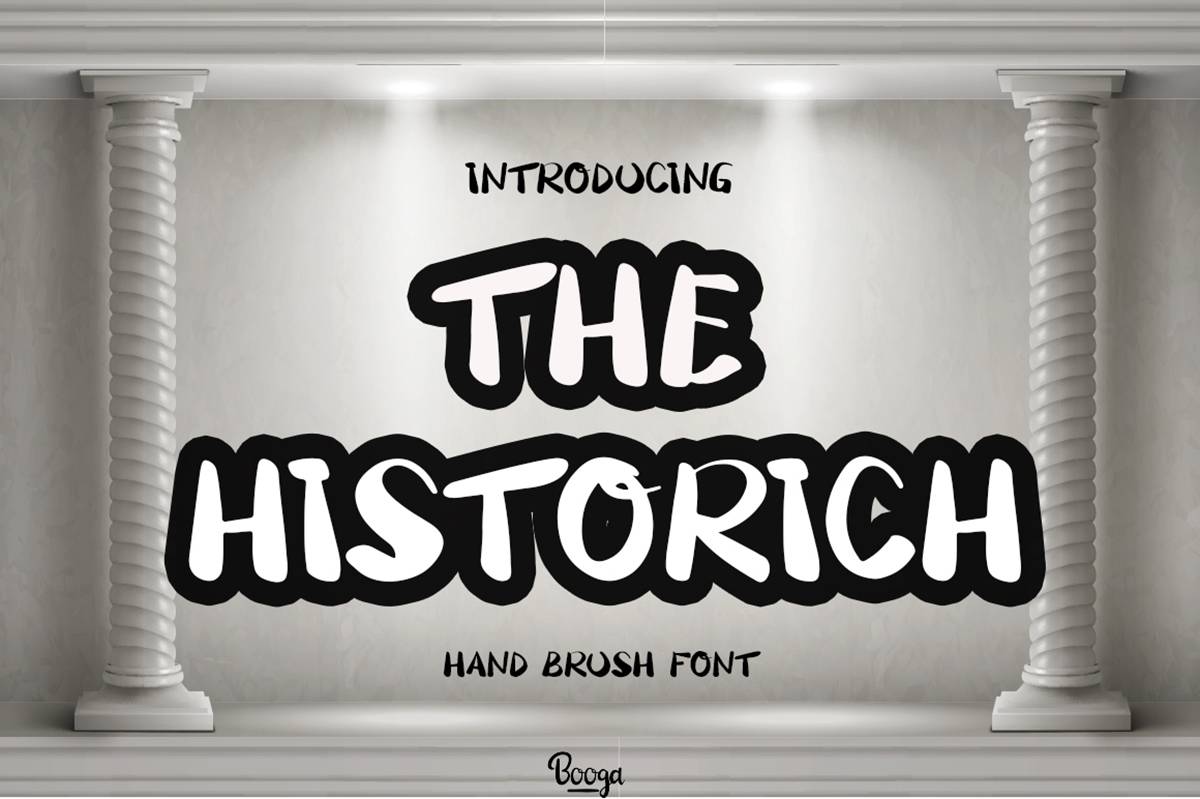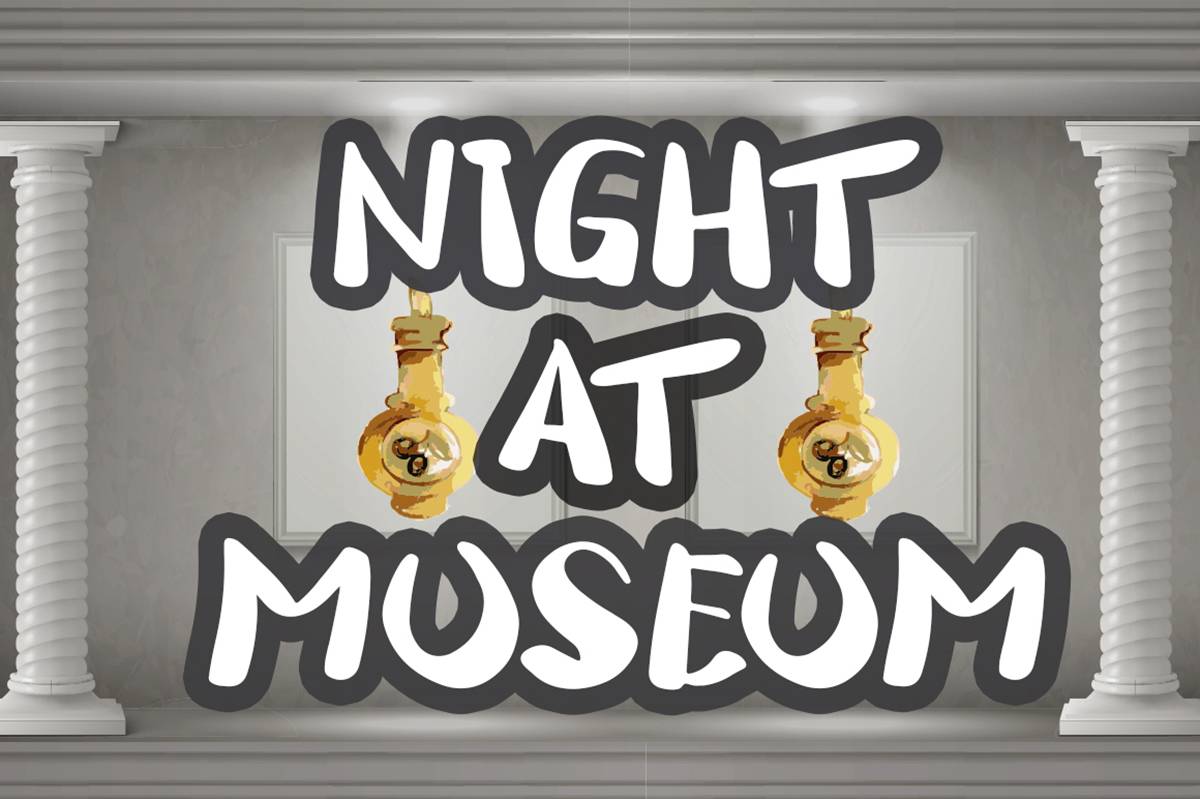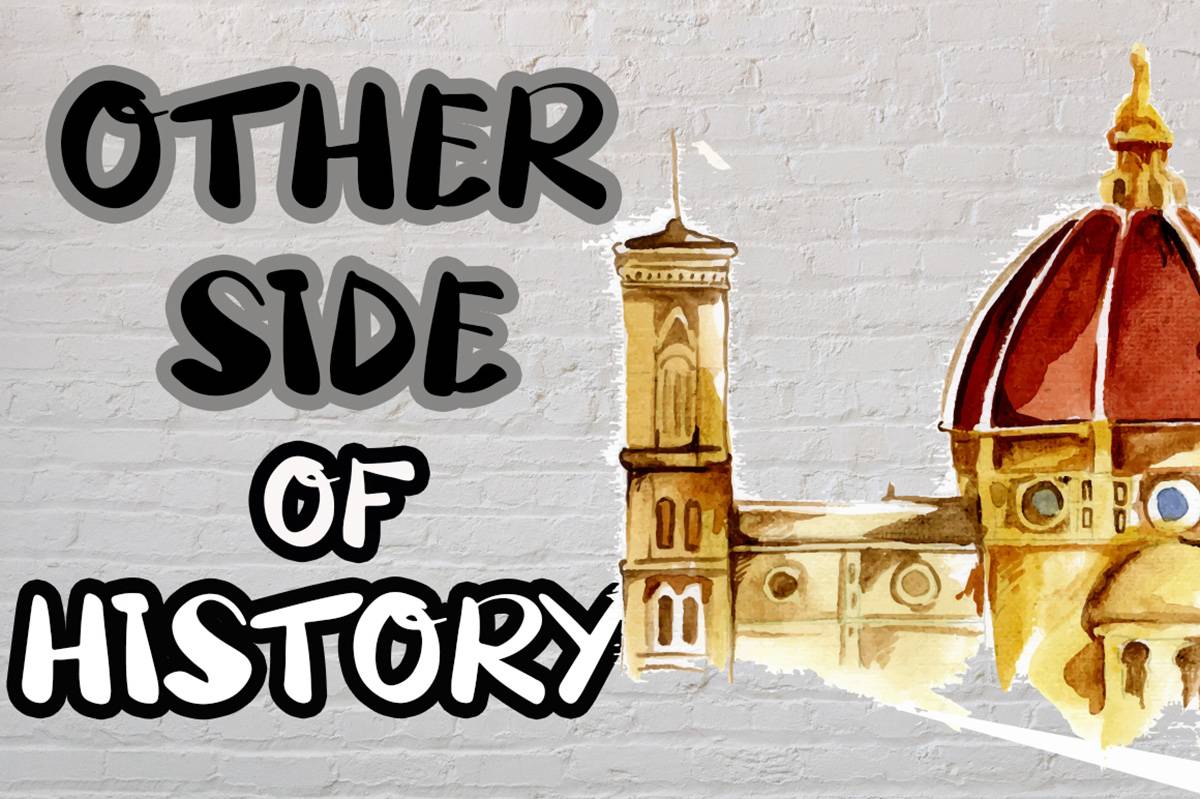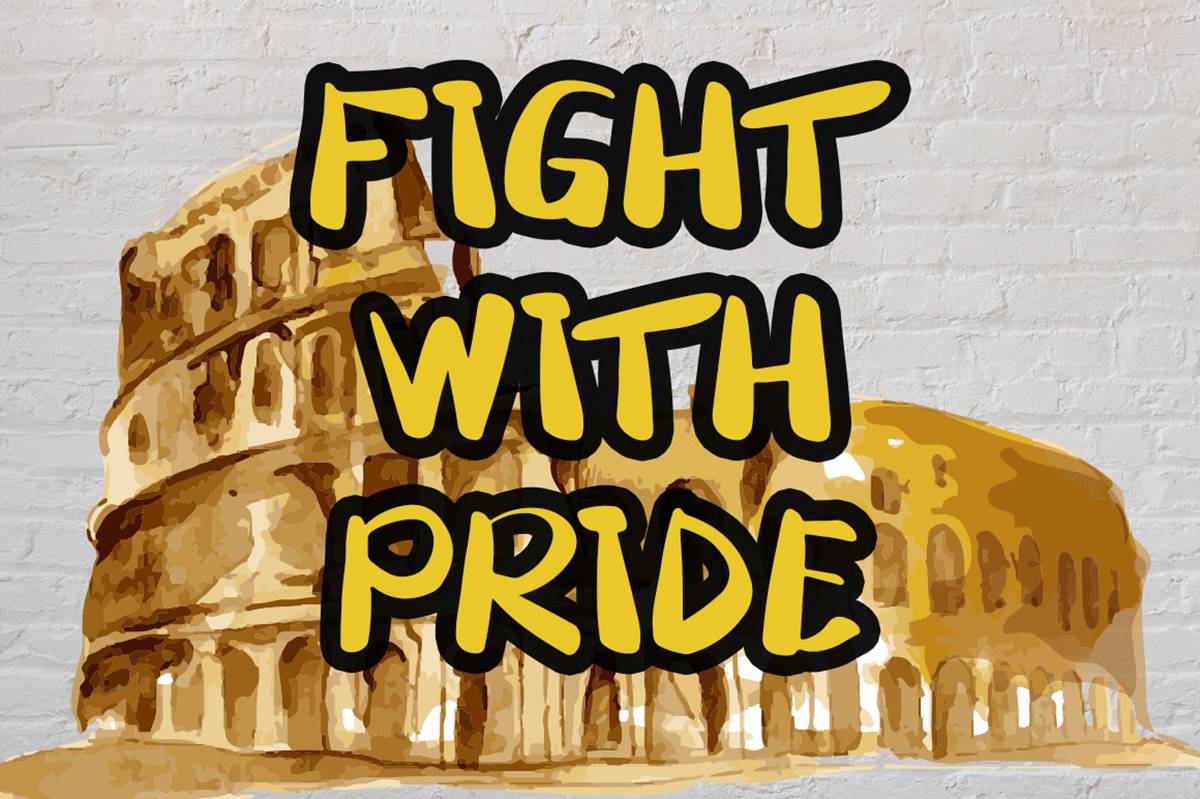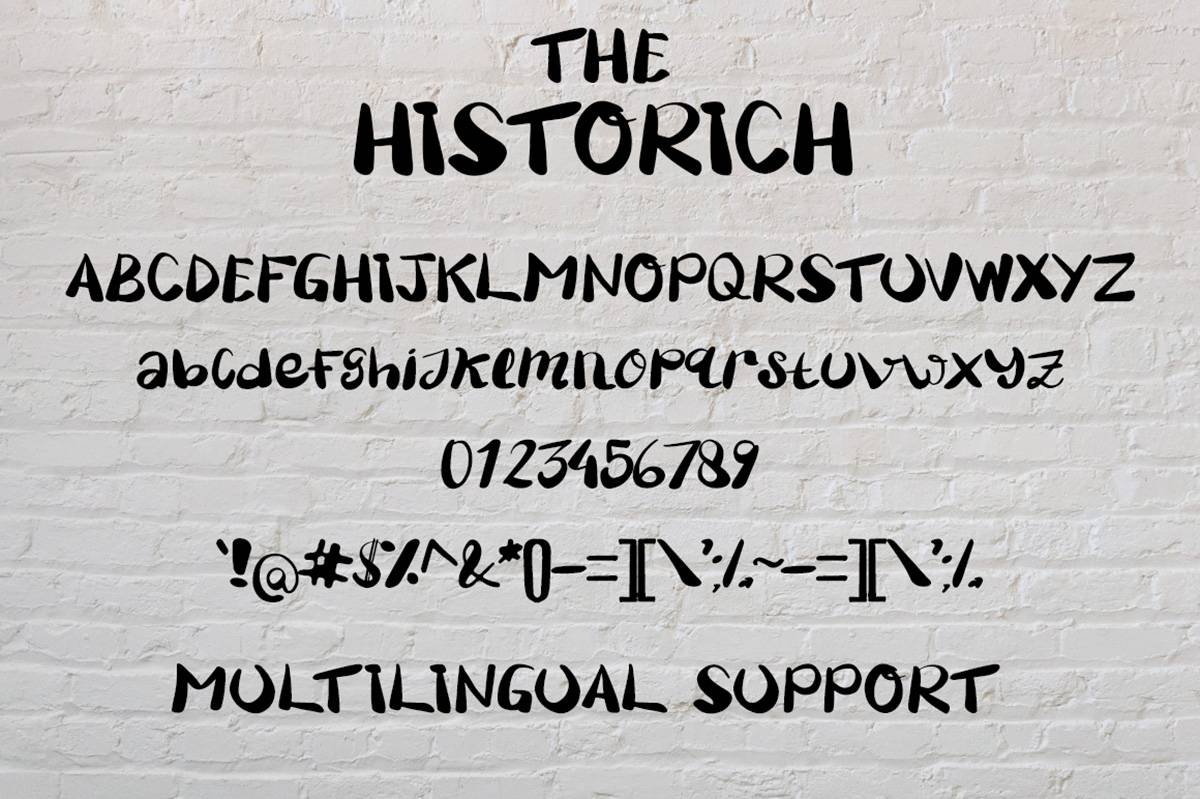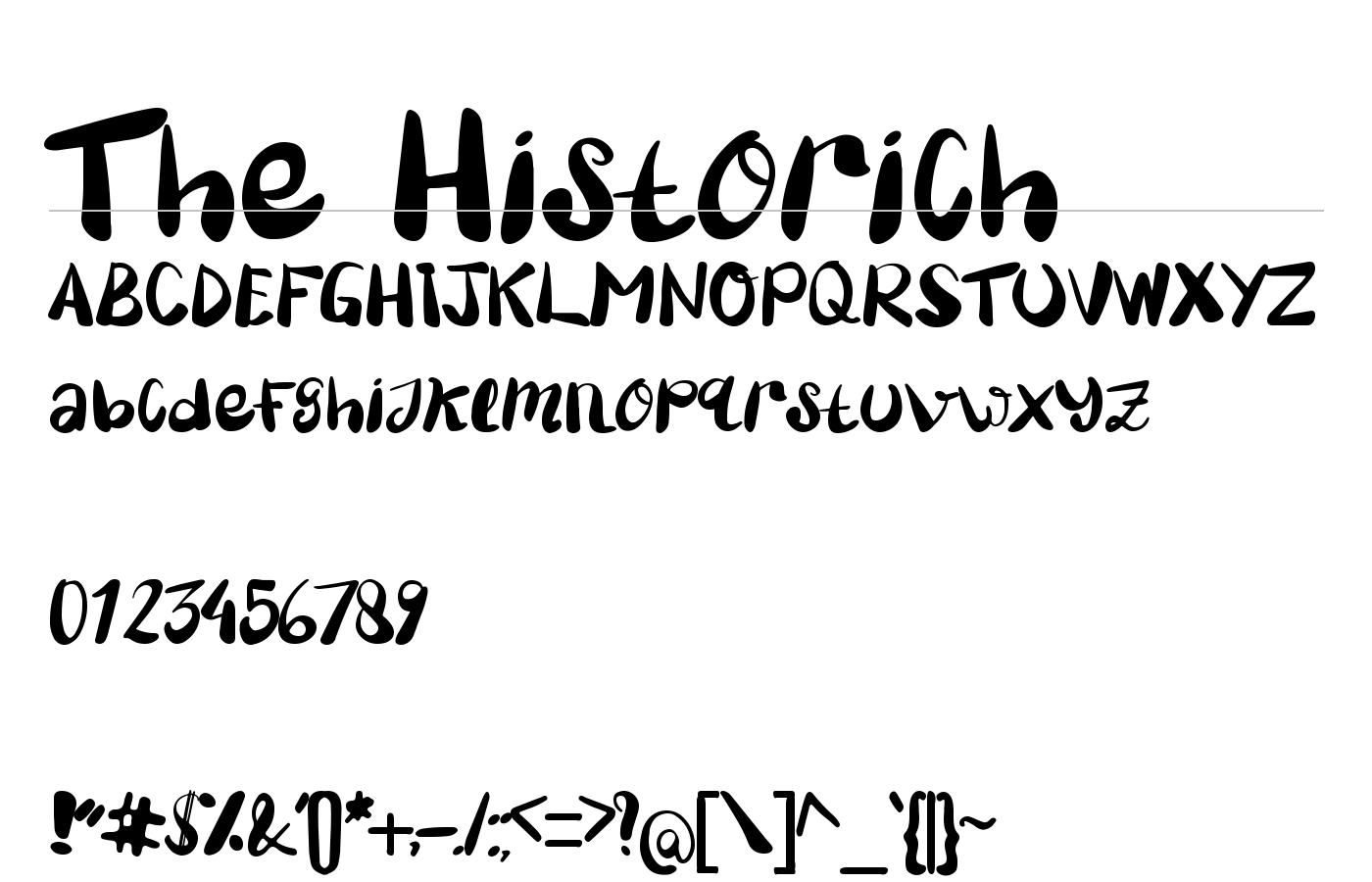
The Historich Font is a playful, hand-drawn sans serif typeface with an organic and casual feel. Its irregular strokes and varied letter shapes give it a whimsical personality, making it ideal for creative projects, informal branding, and fun editorial work where a lighthearted, approachable tone is desired. This font works well in headlines and signage, bringing a unique, handcrafted charm to any design.
The Historich Font
About The Historich Font
| Font family | The Historich Font |
| Release date | 2020-07-14 |
| Designer | Fajar Wicaksono |
| Trademark | Booga Letter Studio |